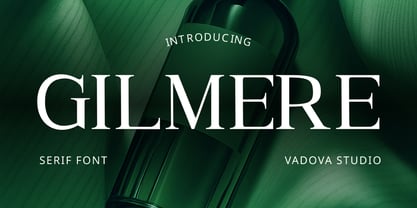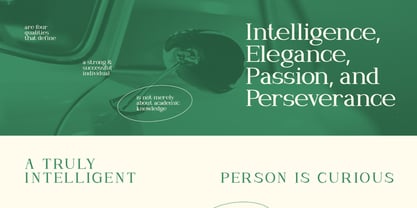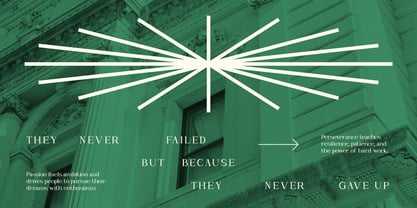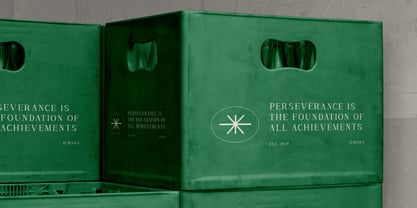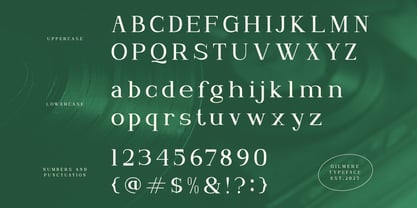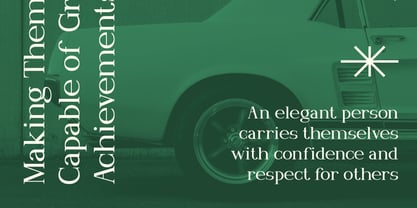
Gilmere
by Vadova Std
Gilmere is a refined serif typeface designed to express elegance, sophistication, and timeless beauty. Featuring graceful contrast, sharp yet delicate serifs, and balanced proportions, this font delivers a premium aesthetic ideal for high-end branding and editorial design. Gilmere is highly suitable for luxury brands, fashion labels, perfume packaging, jewelry branding, boutique hotels, editorial magazines, wedding invitations, and premium product campaigns.